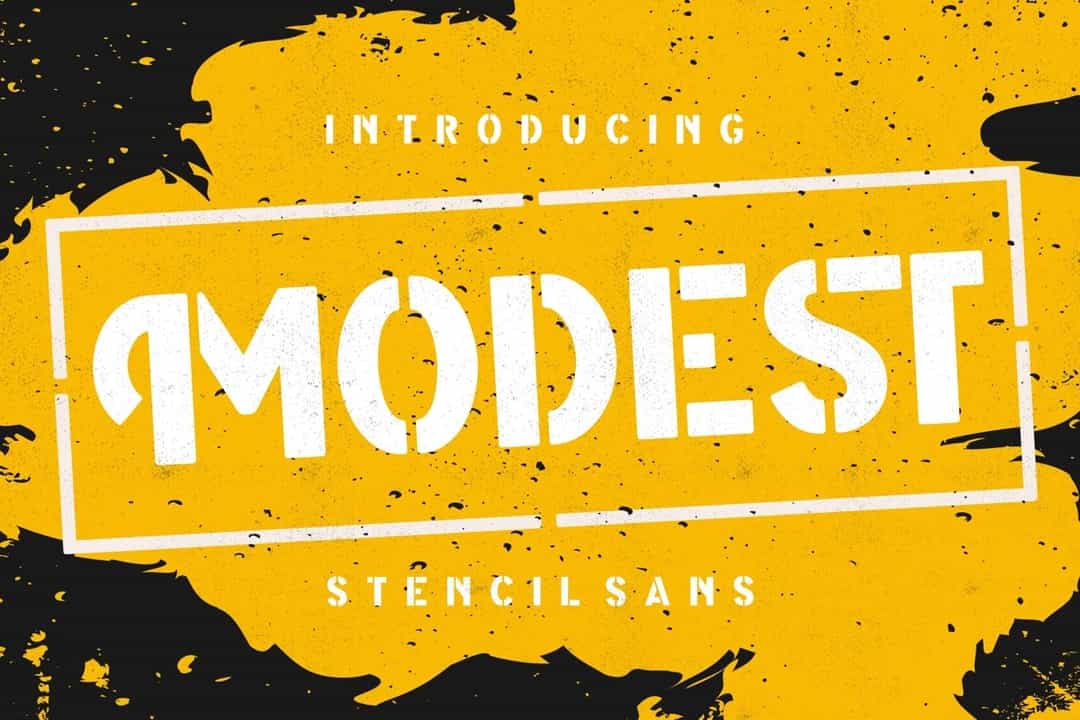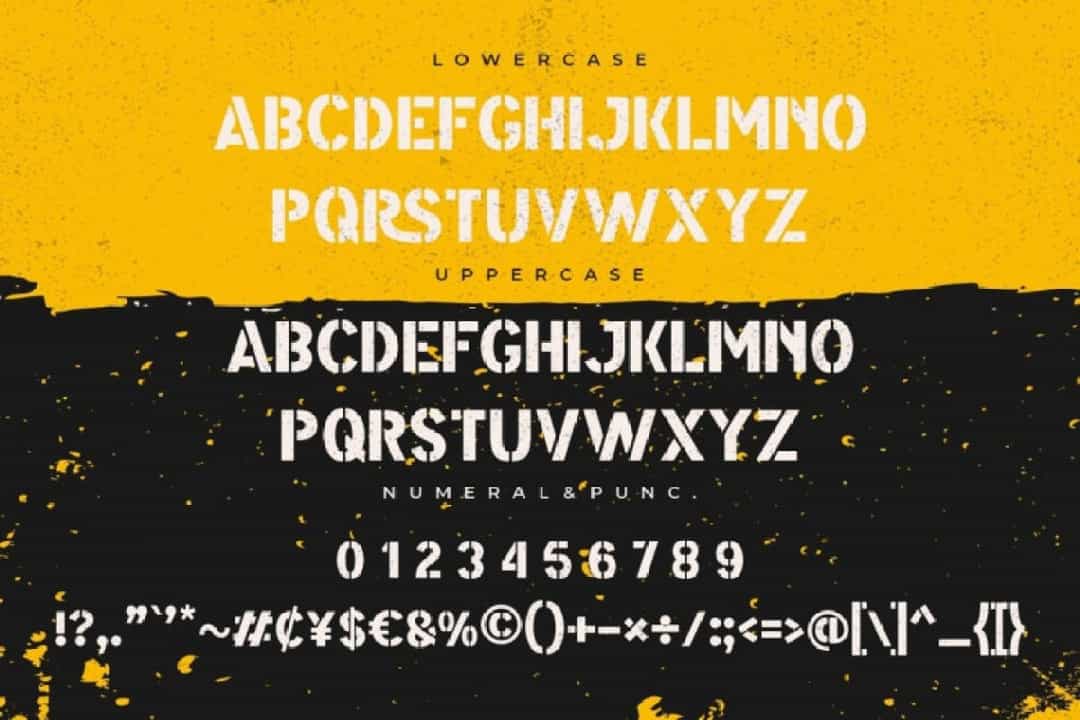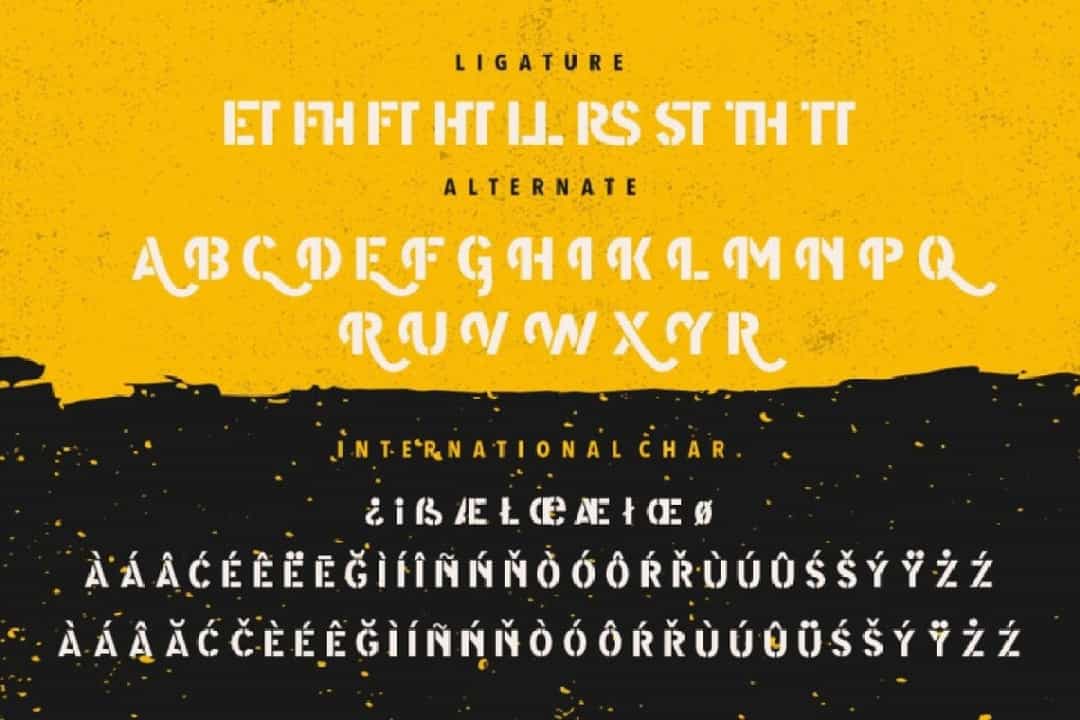
Modest is a stencil sans font with classic cut stencils to create visually appealing and grabbing signs and posters. Great for watermarks, photography social media posts, ads branding logos invitations, product designs label stationery, wedding designs, packaging of products and special events that require handwritten signatures or writing and also special events that need handwriting!